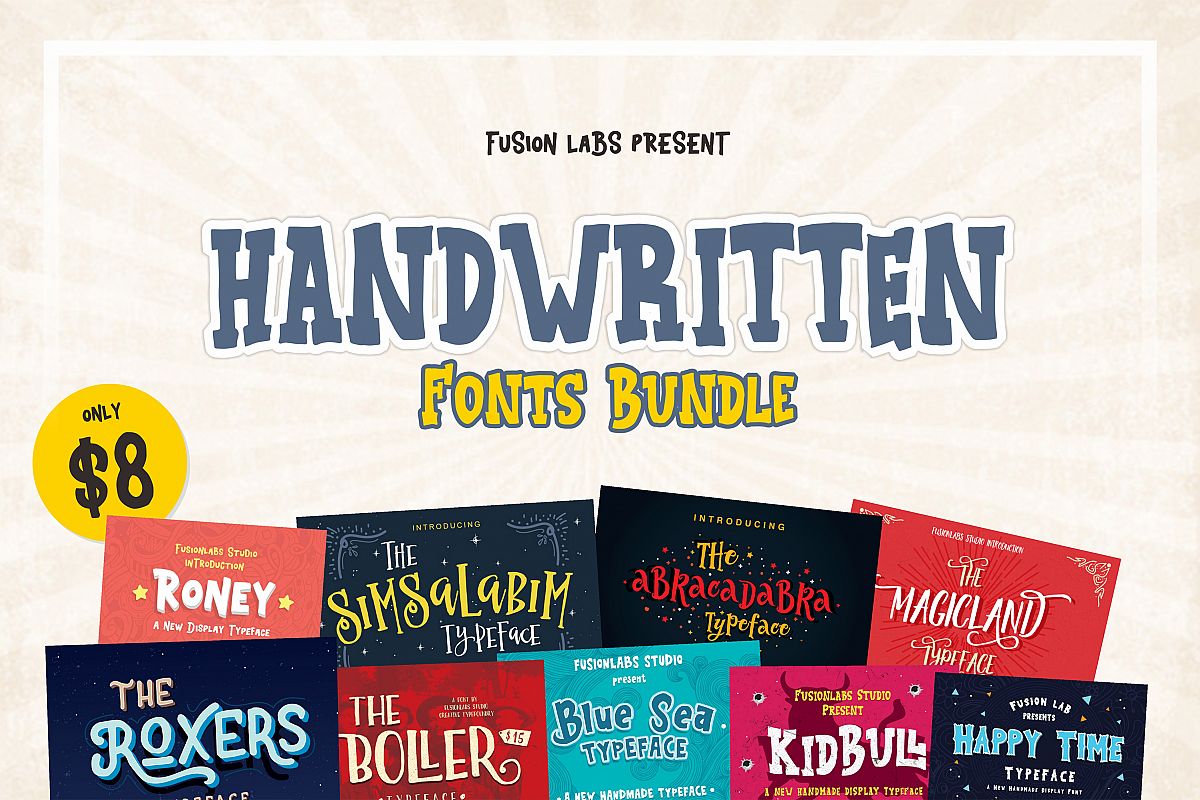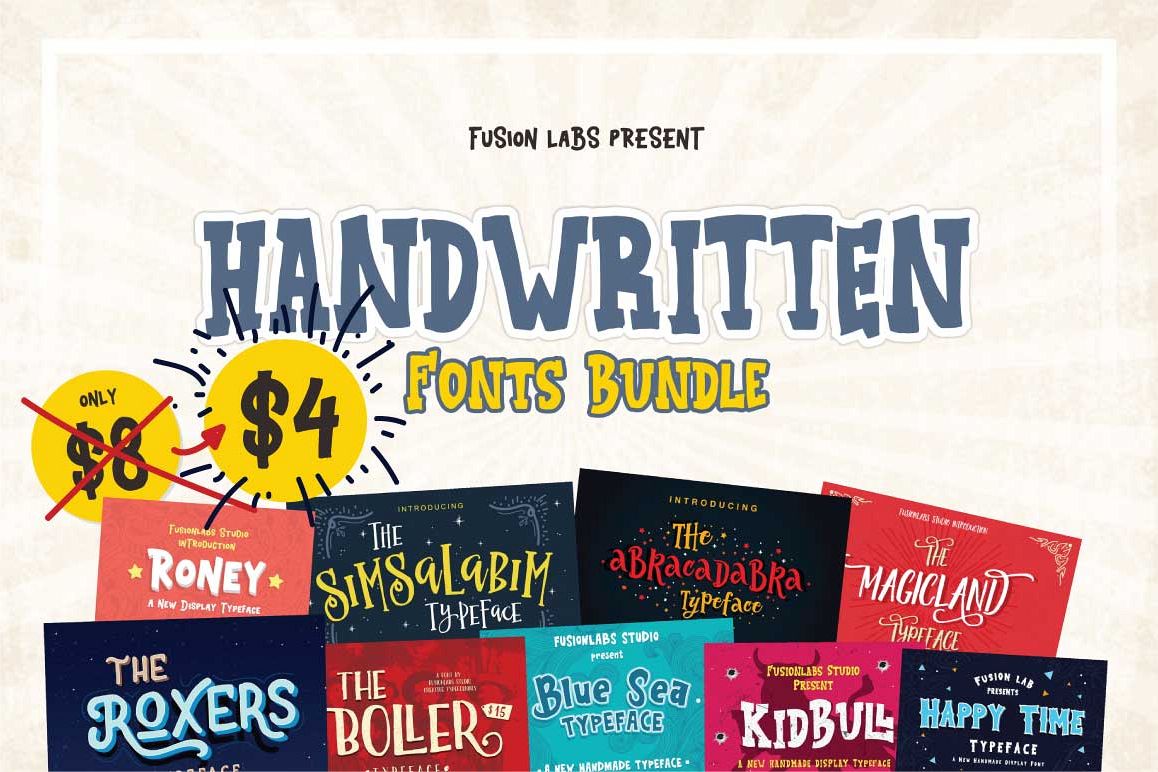
Handwritten Fonts Bundle
Blue Sea
KidBull
Roney
Happy Time
Magicland
Abracadabra Typeface
Roxers Rough
Roxers Typeface
Simsalabim Typeface
Boller Typeface
Handwritten Fonts Bundle
9 Fonts included.
All of fonts in the bundle was inspired by the old poster and vintage labels. With some retro, fun and playful handmade.
All font was made entirely by hand. Hope you like it!
This bundle are perfect for something that carries cartoon themes, children's books, funny greeting cards, food package designs, simple logotype, t-shirt design, bottle label, games application name, vintage poster or abstract images and many more.